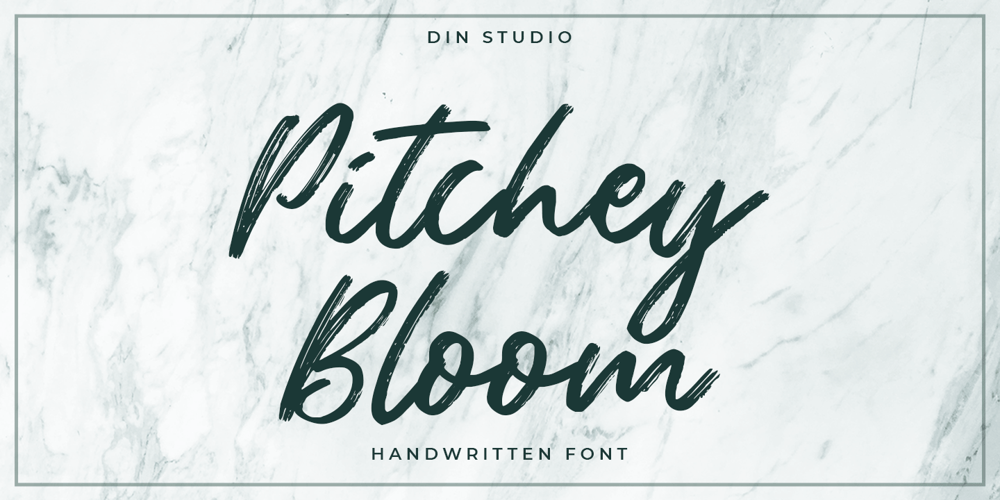
Pitchey Bloom Font Family was designed by Donis Miftahudin and published by Din Studio. Pitchey Bloom contains 1 styles and family package options. Pitchey Bloom is a modern handwritten font. With a classy and natural handwritten style, it brings a classy and beautiful typeface. Pitchey Bloom is best used for branding, logotype, and quotes.Features:- Multilingual Support- Stylistics Set- PUA Encoded- Numerals and Punctuation